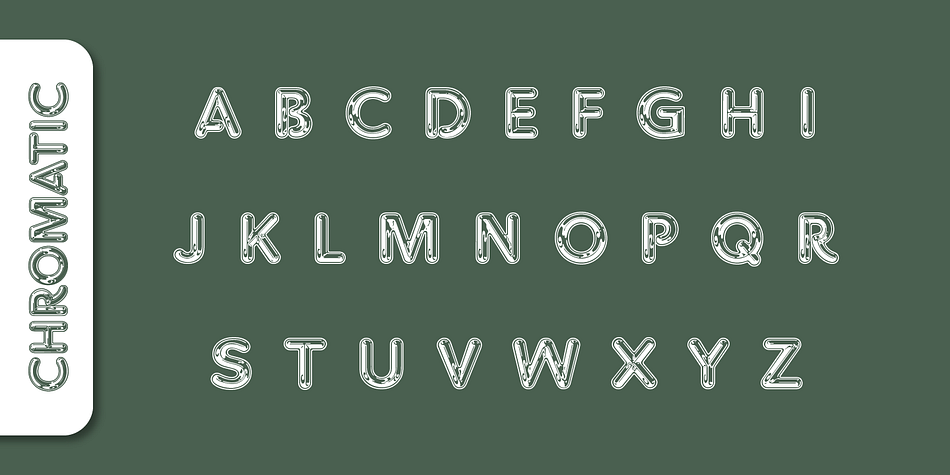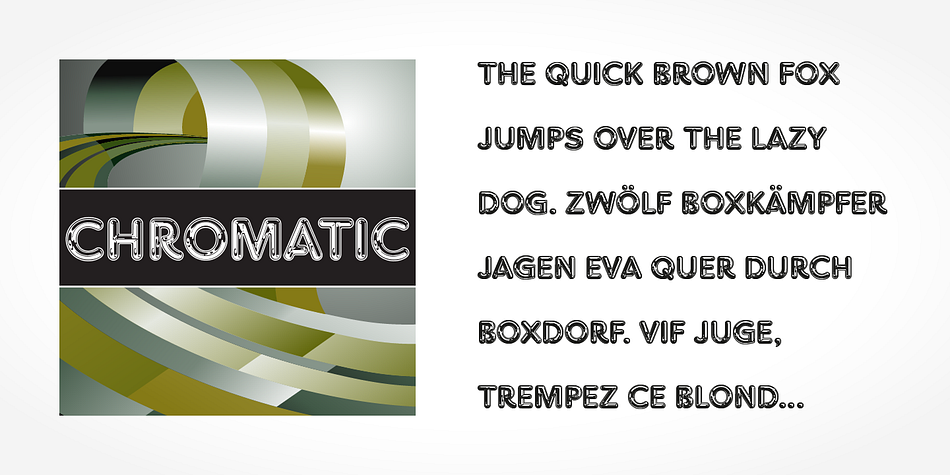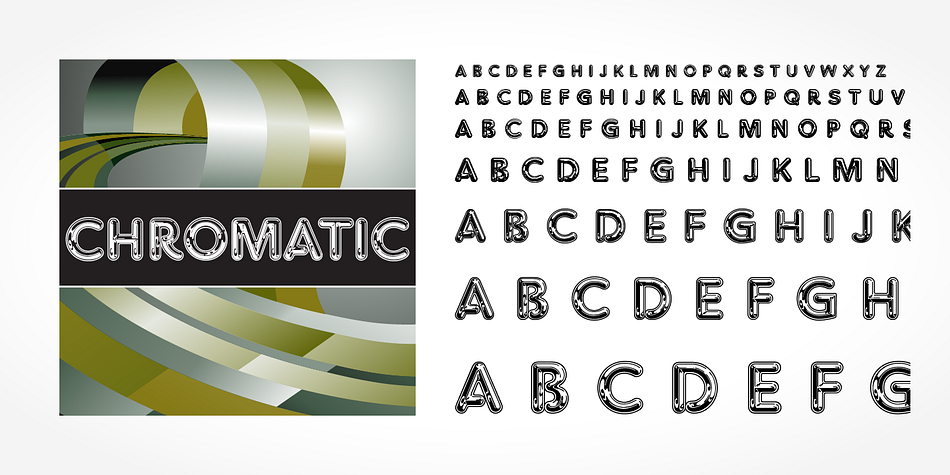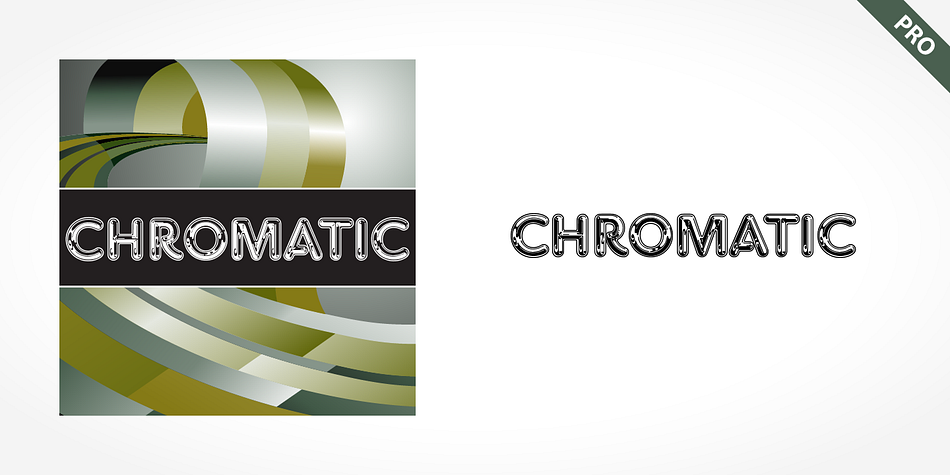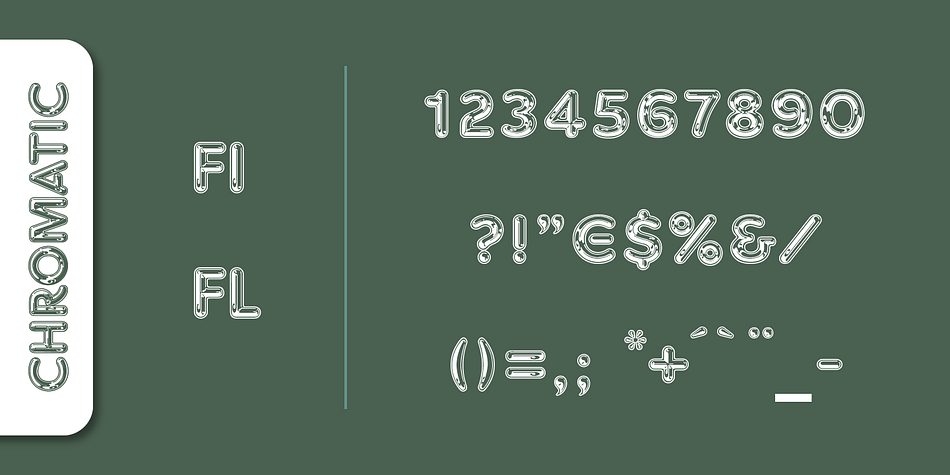
CHROMATIC PRO
Chromatic Pro is a display sans font published by SoftMaker.
With their rounded edges and shiny appearance, the characters seem to be made of smooth pieces of chrome joined seamlessly together. The unusual and distinctive Chromatic Pro can be used for a variety of display applications.